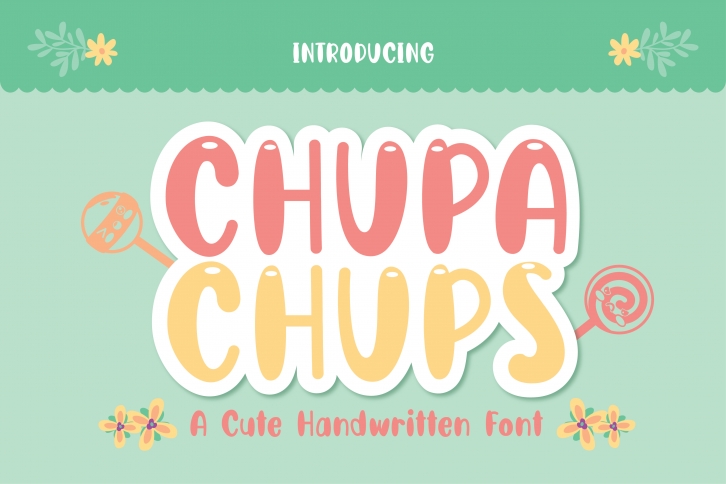
Chupa Chups is a cute and flexible display font. Its natural and unique style makes it incredibly fitting to a large pool of designs. Have fun with this beautiful font and explore its endless variations.